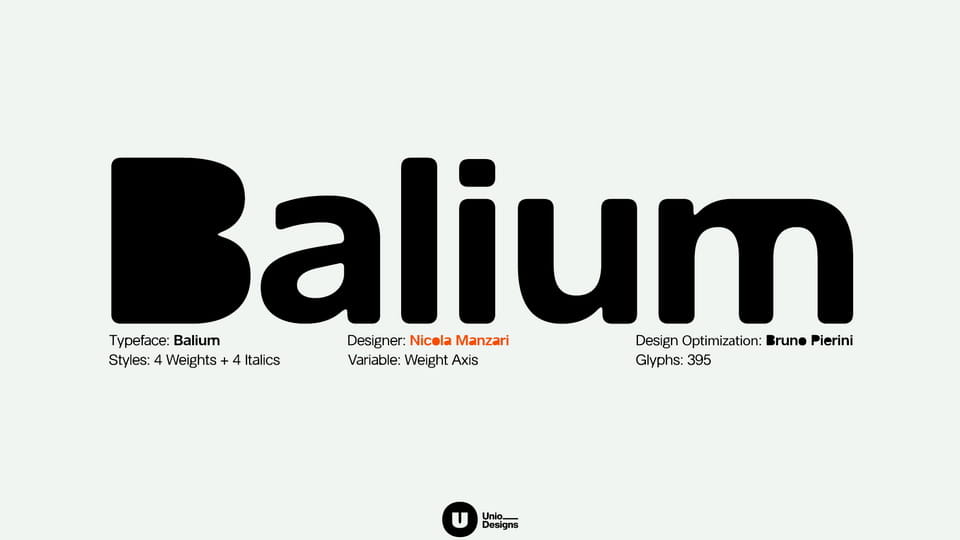
Download Balium font, a contemporary sans-serif type system born from the deliberate reinterpretation of printing errors and the traditional strategies used to conceal them.
Designer: Unio Creative Solutions